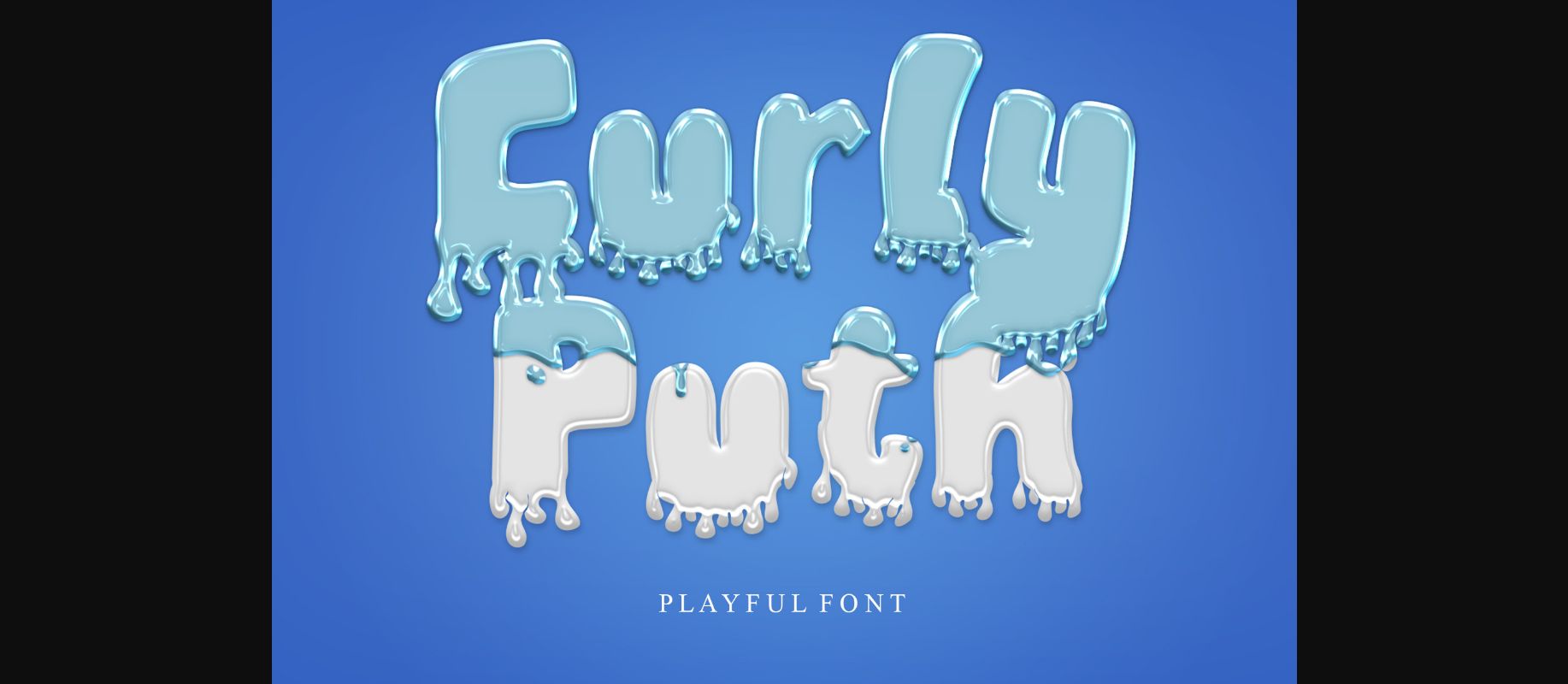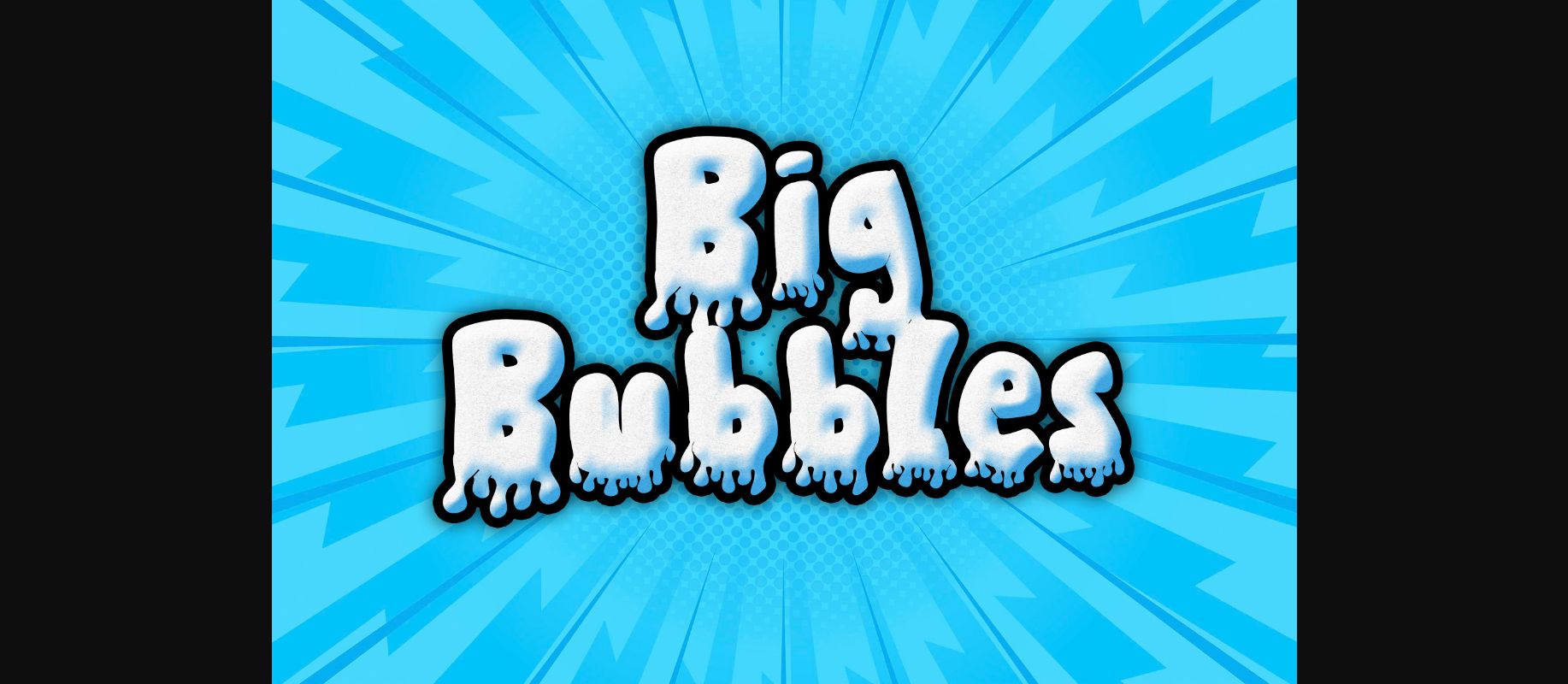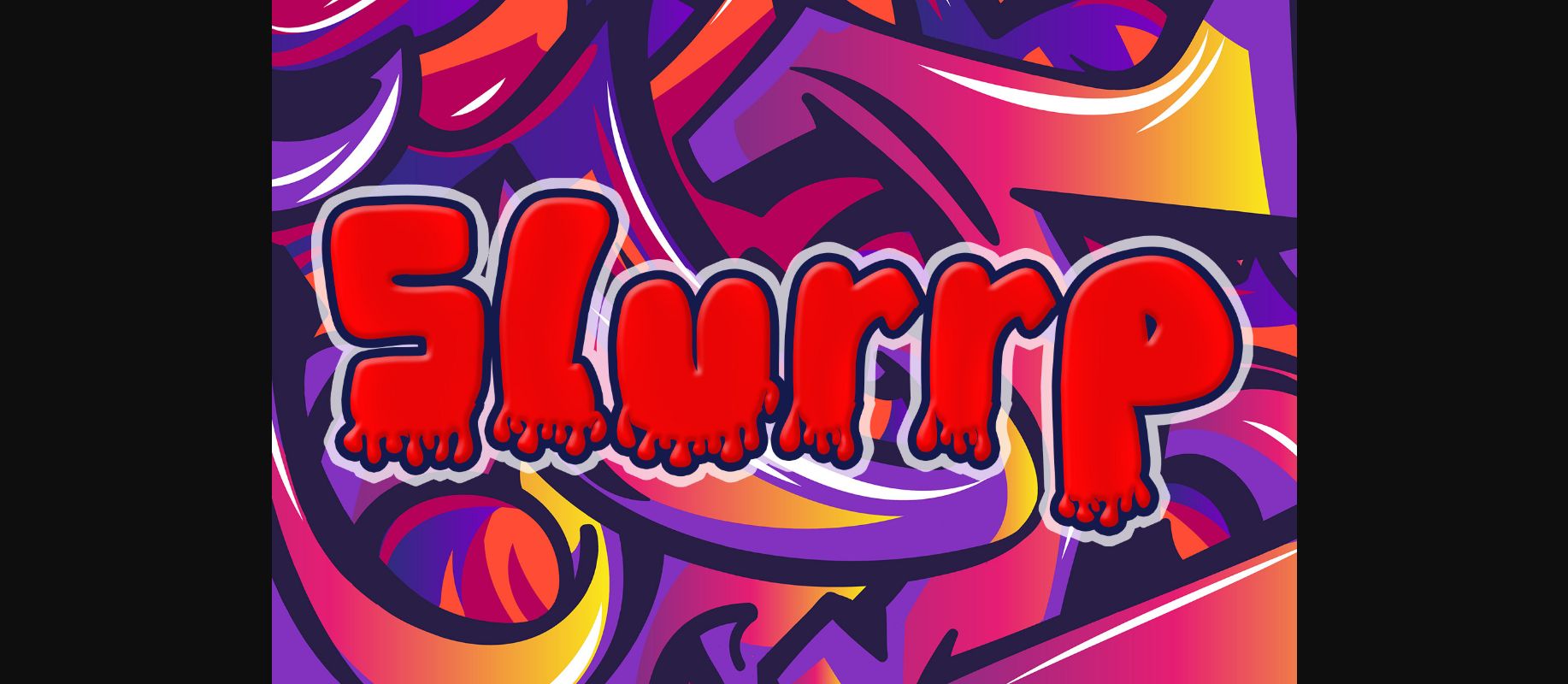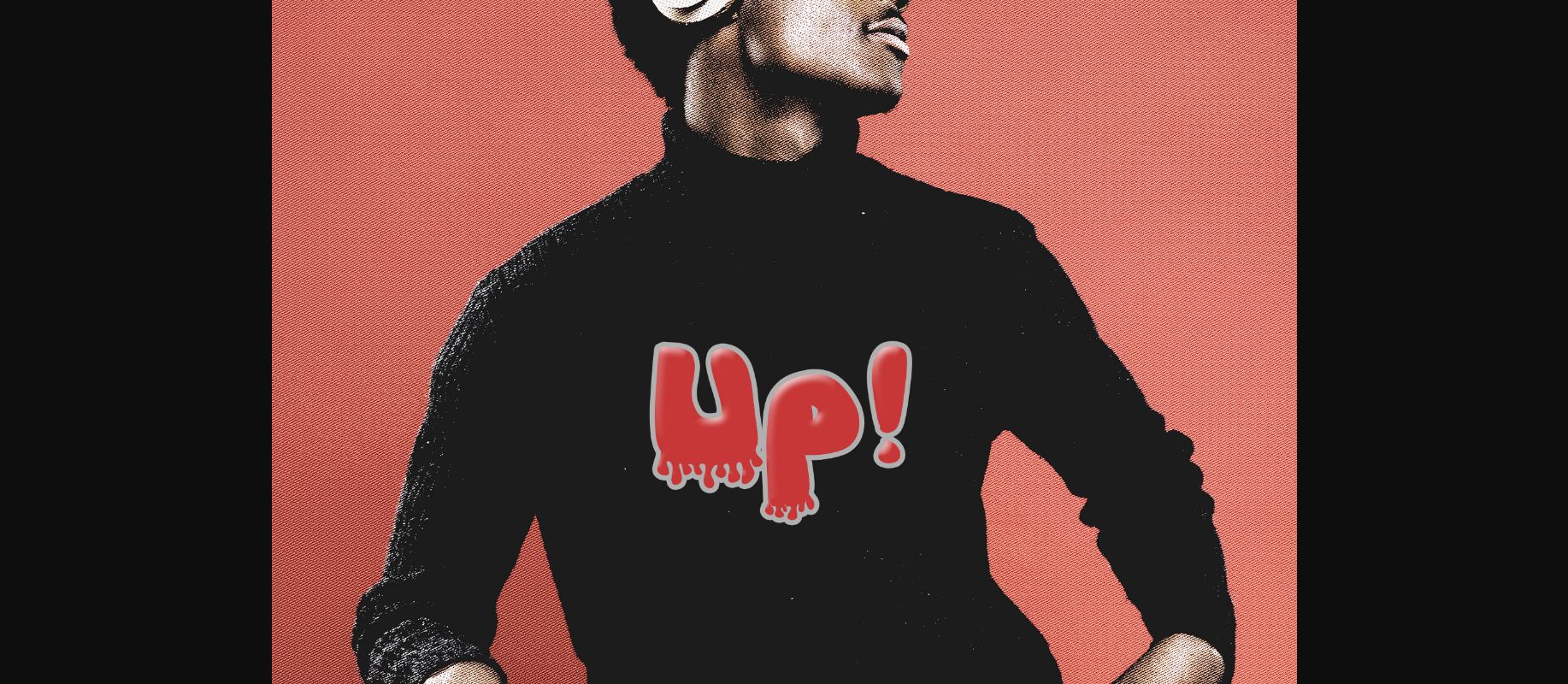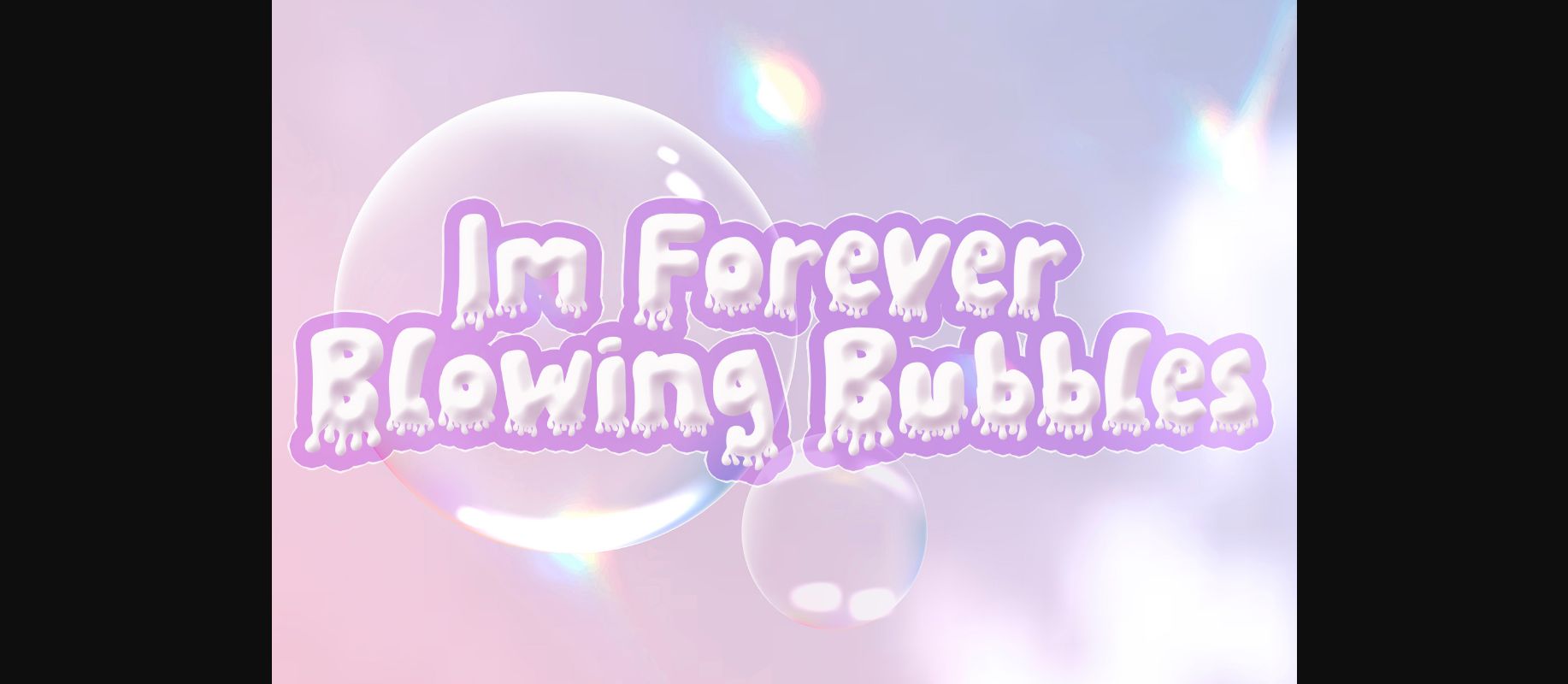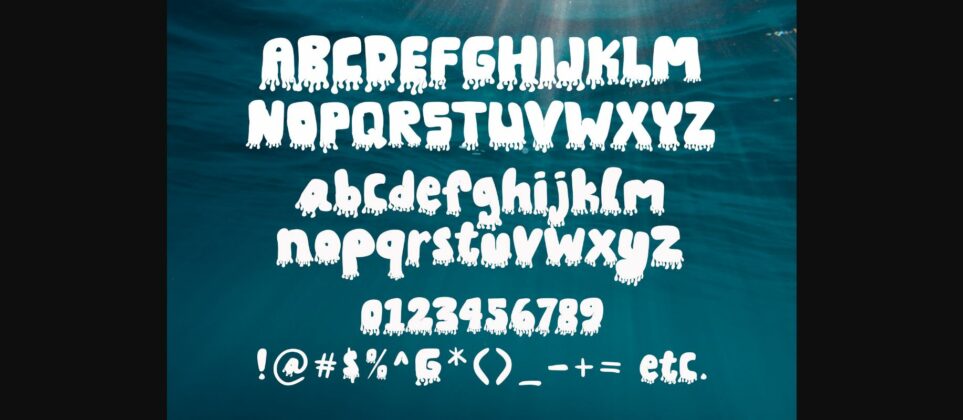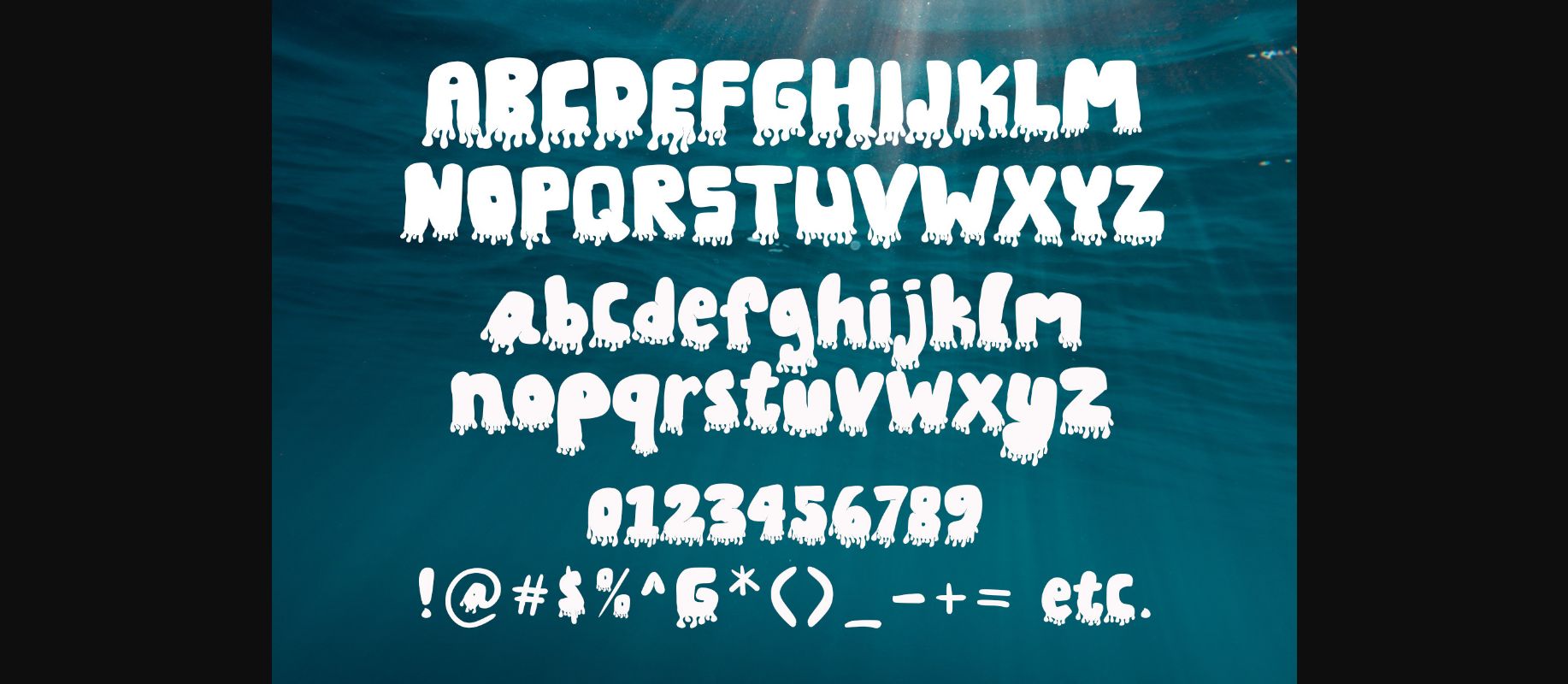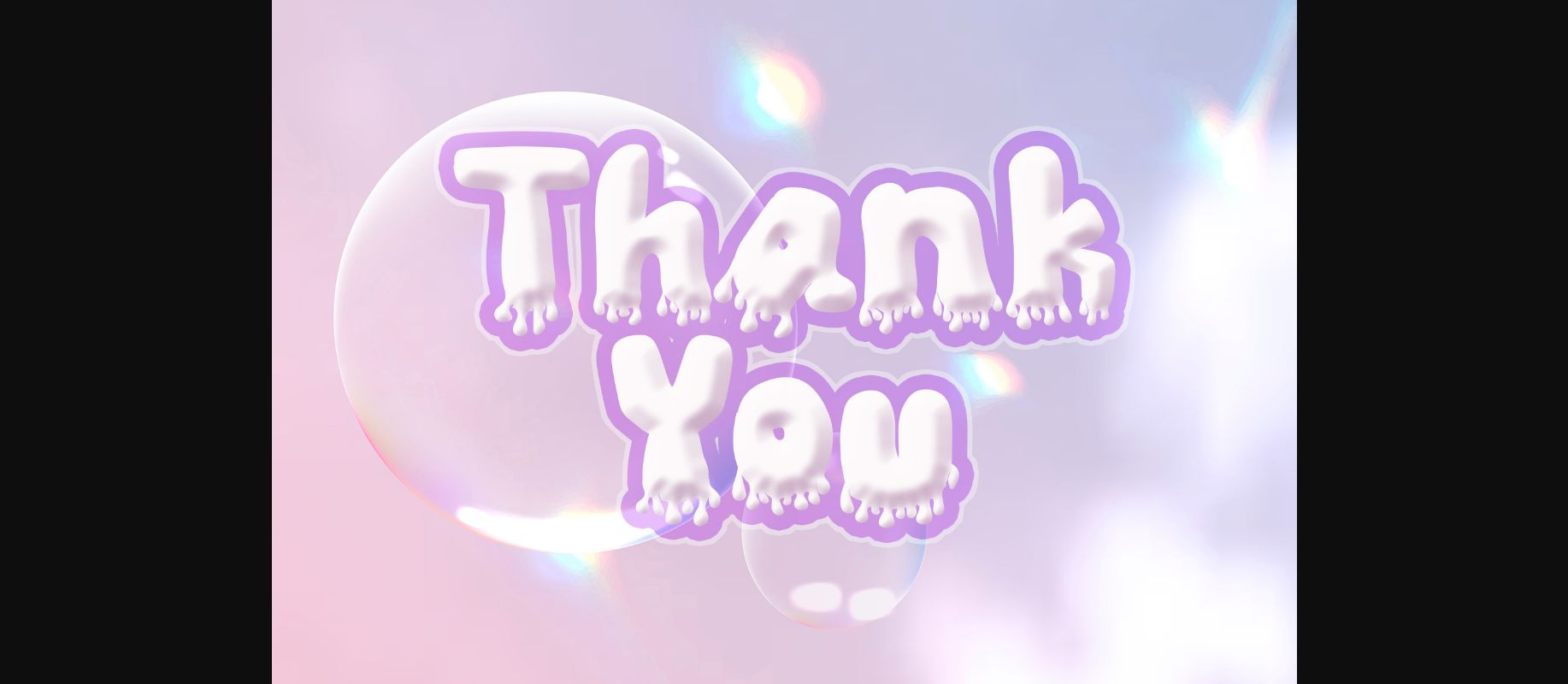
Curly Puth Font
About Curly Puth Font
Curly Puth is a playful and cute font. This font is suitable for children, Whether you’re using it for crafts, digital design, presentations, or making greeting cards, this font has the potential to become your favorite go-to font, no matter the occasion!